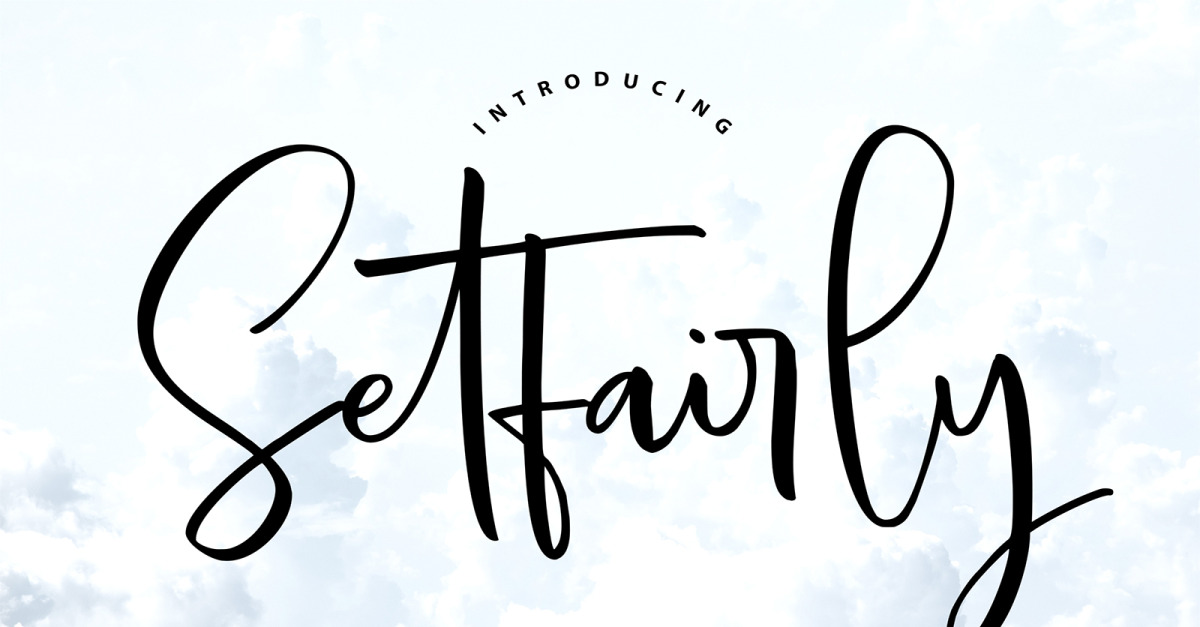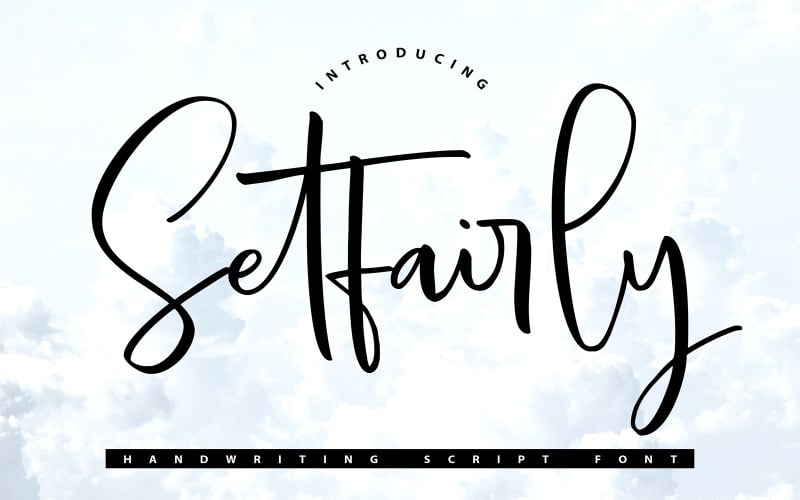
Setfairly | Handwriting Script Font
**Setfairly | Handwriting Script Font** with a calligraphy style, So beautiful on invitation like greeting cards, branding materials, business cards, quotes, posters, and more!